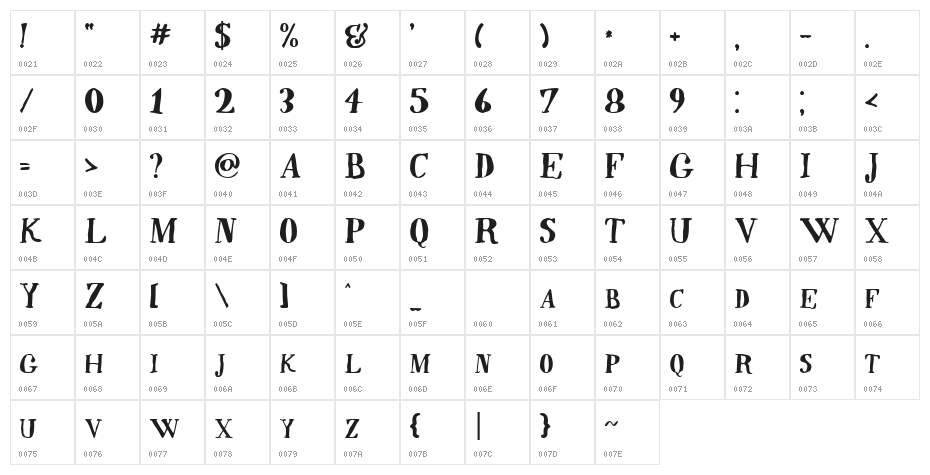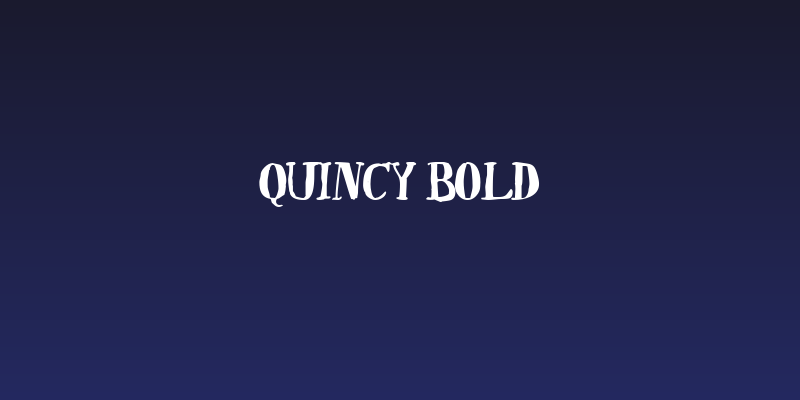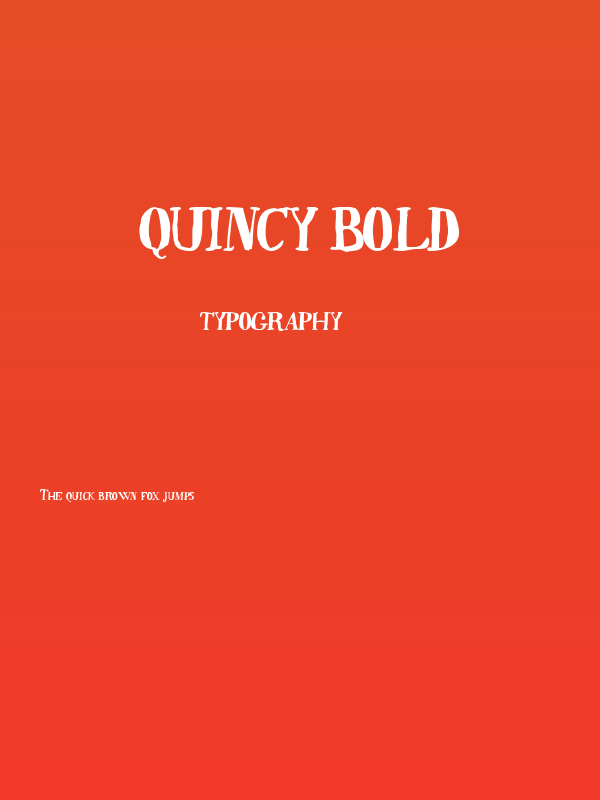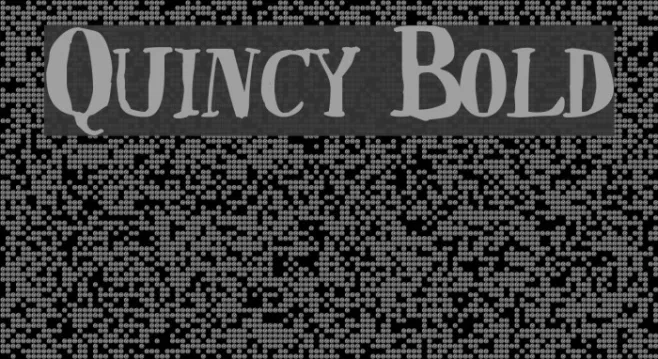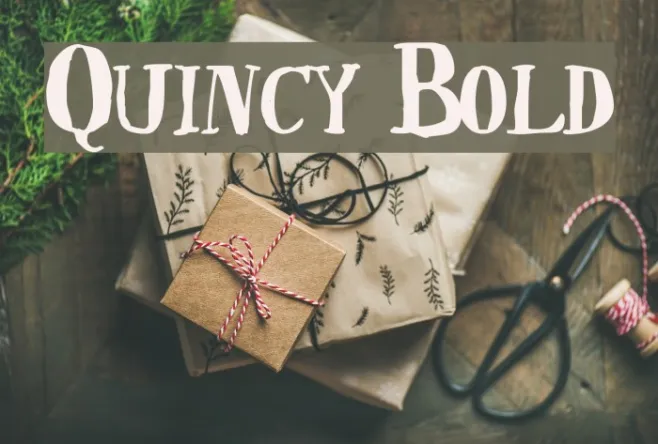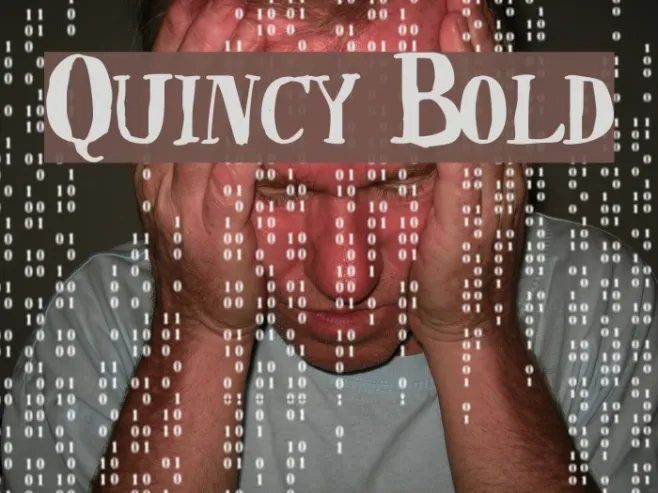
Quincy Bold Font
Quincy Bold Description
This font exhibits a bold and dynamic style with a strong presence. The characters are characterized by thick strokes and a slightly condensed form, giving them a robust and impactful appearance. The uppercase letters have a distinctive flair with sharp edges and subtle curves, while the lowercase letters maintain a consistent boldness. The numerals are equally bold, ensuring visibility and readability. Special characters are designed with the same boldness, making them stand out effectively. This font's overall style is both decorative and assertive, making it suitable for projects that require a strong visual impact.
| Proposed Projects | Ideal for headlines, posters, branding, and any design that requires a bold statement. |